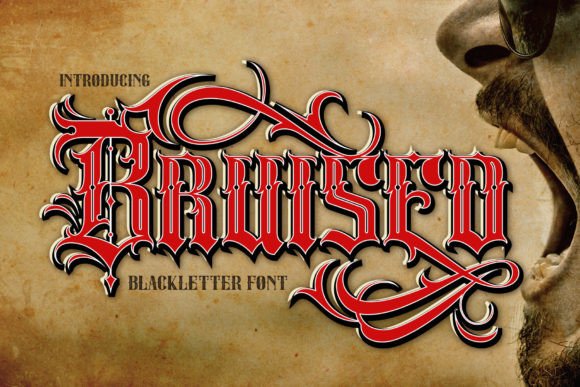
Bruised Font: The Ultimate Contemporary Blackletter Tattoo Font
In the world of typography, fonts play a crucial role in conveying the tone and personality of a brand. When it comes to creating visually striking and edgy designs, a blackletter font can be an excellent choice. Introducing Bruised Font, a contemporary blackletter tattoo font that is perfect for logos, t-shirt designs, posters, flyers, and other brand identity items. In this article, we’ll dive into the features and benefits of Bruised Font and explore how it can elevate your design projects.
What is Bruised Font?
Bruised Font is a modern blackletter font that draws inspiration from traditional tattoo typography. Its unique and bold design makes it an ideal choice for creating striking logos, t-shirt designs, and other brand identity items. The font features a distressed and worn look, giving it a rebellious and edgy feel that’s perfect for brands that want to make a statement.
Key Features of Bruised Font
- Contemporary Blackletter Design: Bruised Font boasts a modern blackletter design that’s perfect for creating unique and eye-catching designs.
- Tattoo-Inspired: The font’s distressed and worn look gives it a tattoo-inspired feel that’s perfect for brands that want to convey a bold and edgy personality.
- Highly Versatile: Bruised Font can be used for a wide range of design projects, including logos, t-shirt designs, posters, flyers, and more.
- Easily Customizable: The font is highly customizable, allowing you to adjust the lettering, spacing, and other elements to fit your design needs.
Benefits of Using Bruised Font
So, why should you choose Bruised Font for your design projects? Here are just a few benefits of using this versatile and stylish font:
- Instant Recognition: The bold and edgy design of Bruised Font ensures that your brand will stand out and grab attention.
- Unique Personality: The font’s tattoo-inspired look gives it a unique personality that’s perfect for brands that want to convey a bold and rebellious attitude.
- Time-Saving: With Bruised Font, you can create professional-looking designs in no time, saving you time and effort.
How to Use Bruised Font in Your Design Projects
Using Bruised Font in your design projects is easy and straightforward. Here are a few tips to get you started:
- Logos: Use Bruised Font to create bold and eye-catching logos that make a statement.
- T-Shirt Designs: The font’s distressed look makes it perfect for t-shirt designs that require a bold and edgy look.
- Posters and Flyers: Use Bruised Font to create striking posters and flyers that grab attention and convey a message.
- Branding and Identity: The font is perfect for creating brand identity items such as business cards, letterheads, and more.
Tips and Tricks for Getting the Most Out of Bruised Font
Here are a few tips and tricks to help you get the most out of Bruised Font:
- Experiment with Colors: Try out different colors and color combinations to create unique and eye-catching designs.
- Adjust the Lettering: Experiment with different lettering styles and spacing to create a look that’s unique to your brand.
- Combine with Other Fonts: Try combining Bruised Font with other fonts to create a unique and visually striking design.
In conclusion, Bruised Font is a versatile and stylish contemporary blackletter tattoo font that’s perfect for creating bold and eye-catching designs. With its unique and edgy look, it’s ideal for brands that want to convey a rebellious and bold personality. Whether you’re a designer, entrepreneur, or simply someone who loves typography, Bruised Font is a great addition to your design toolkit.